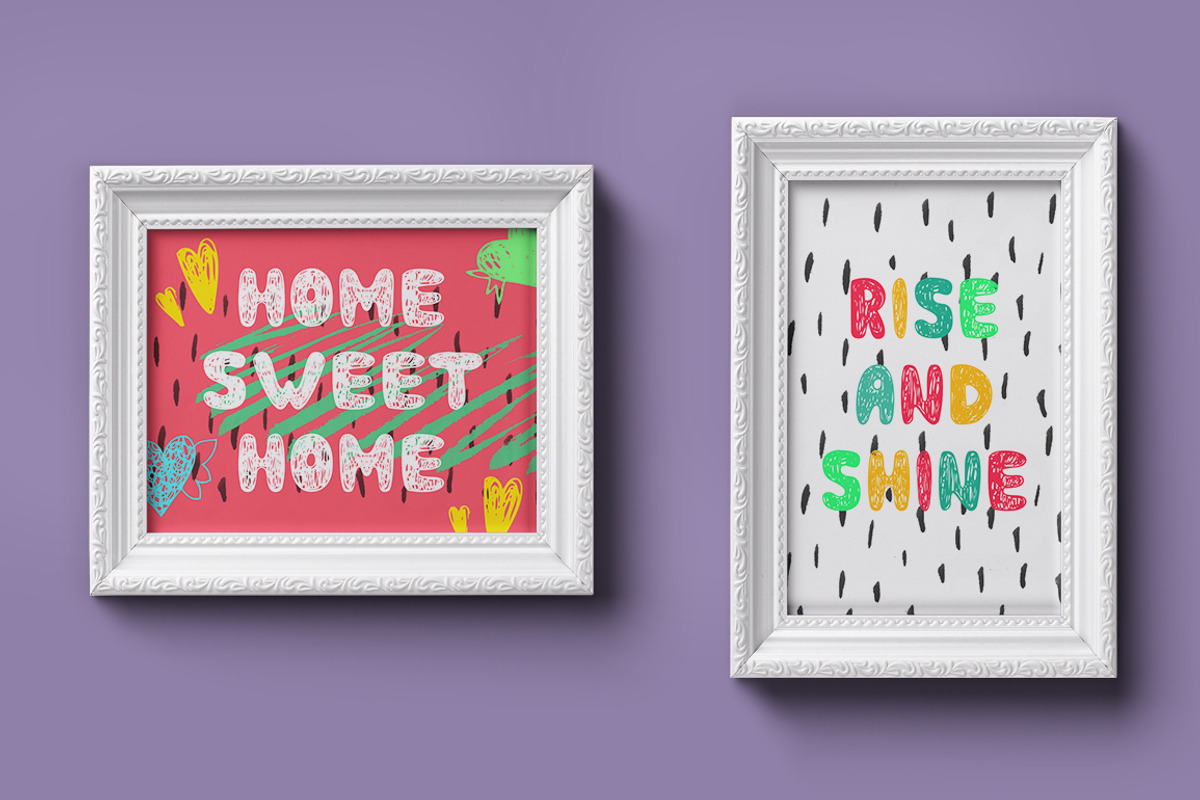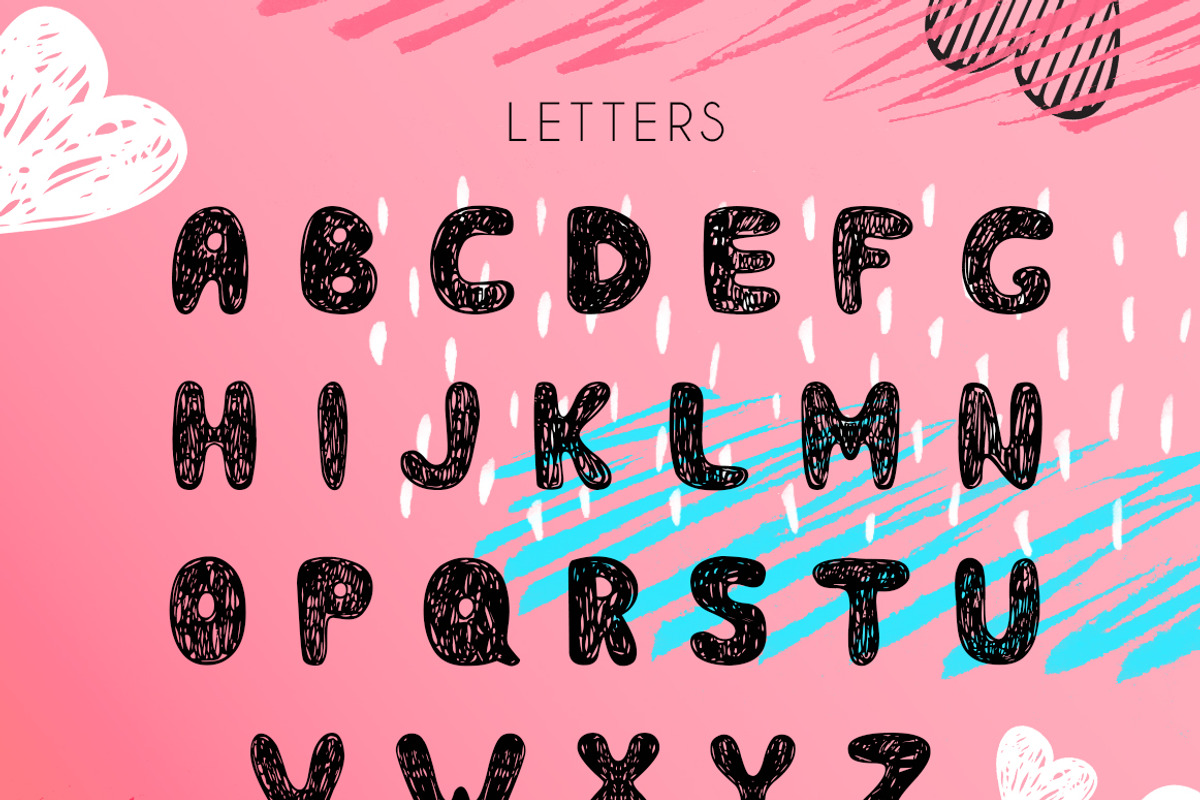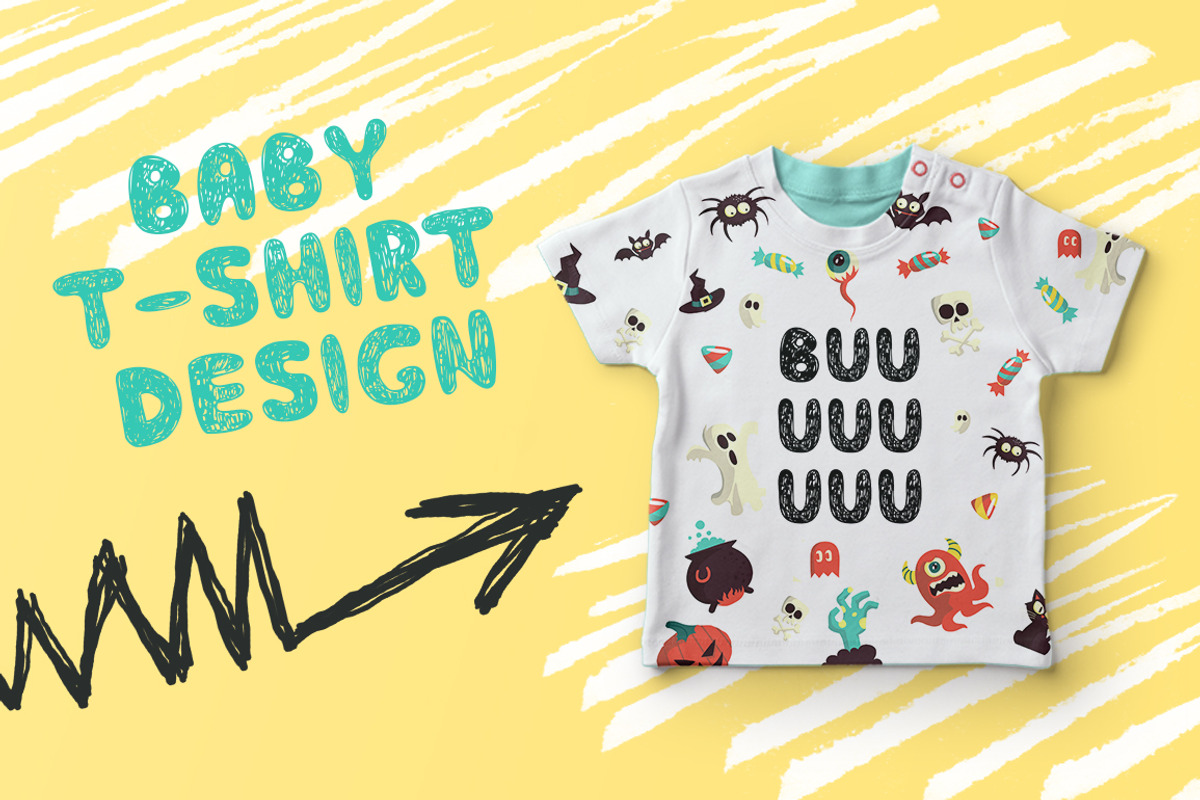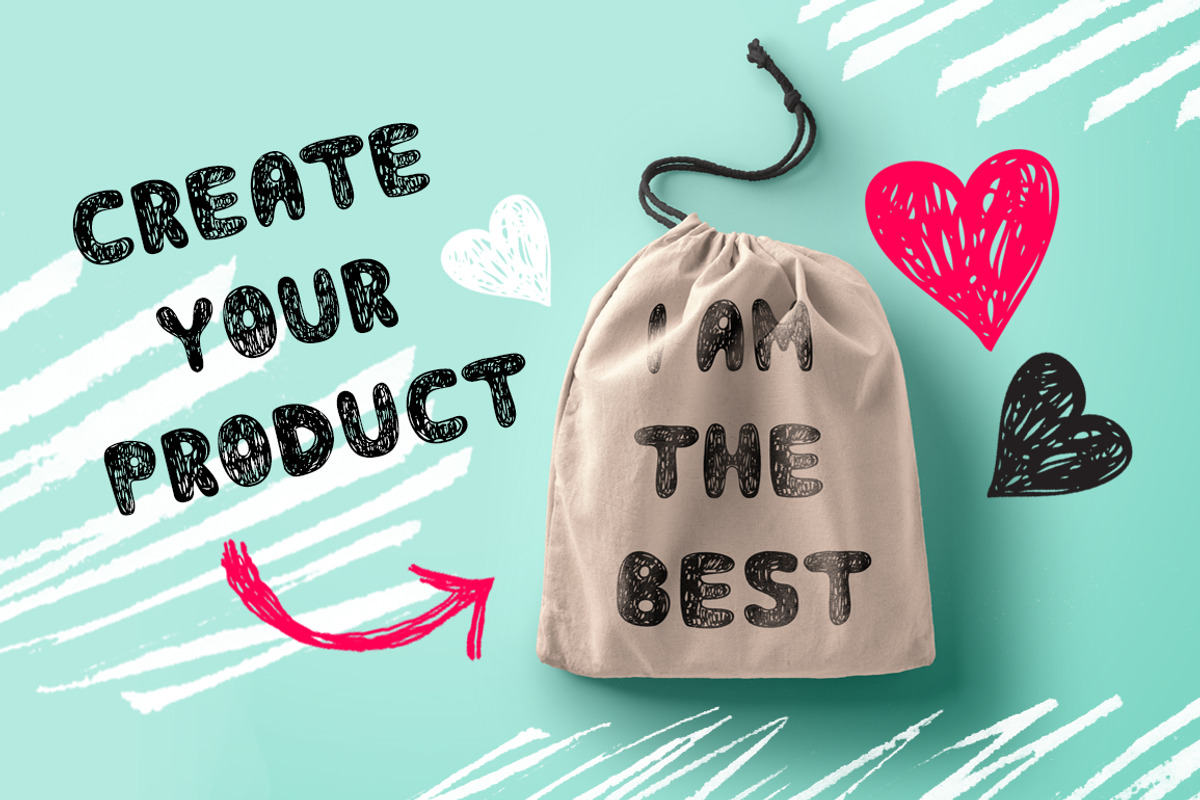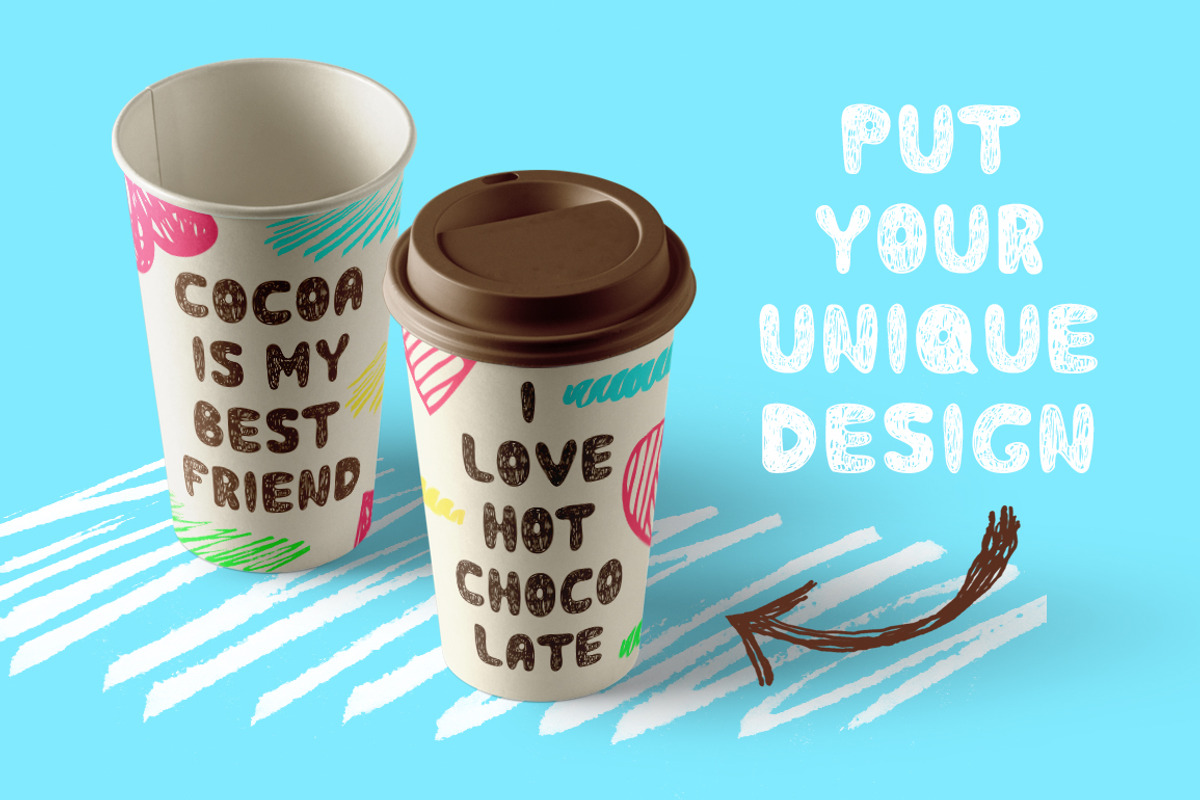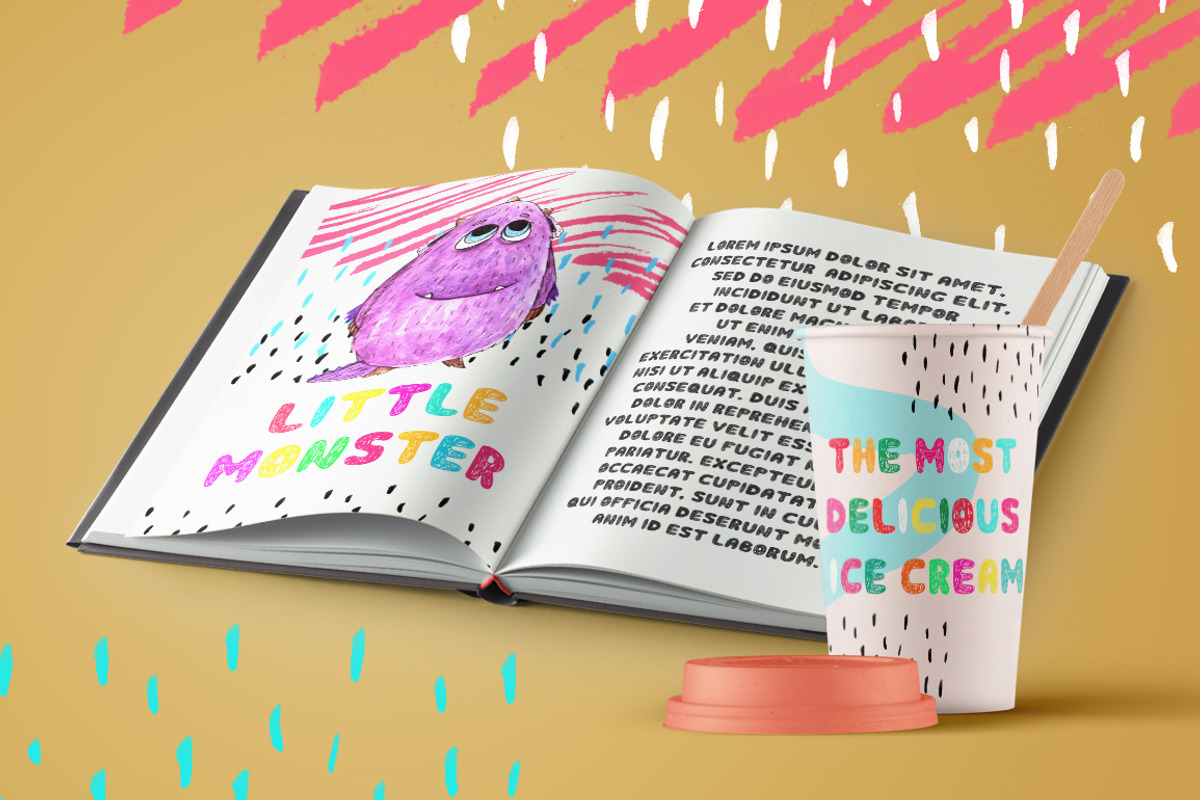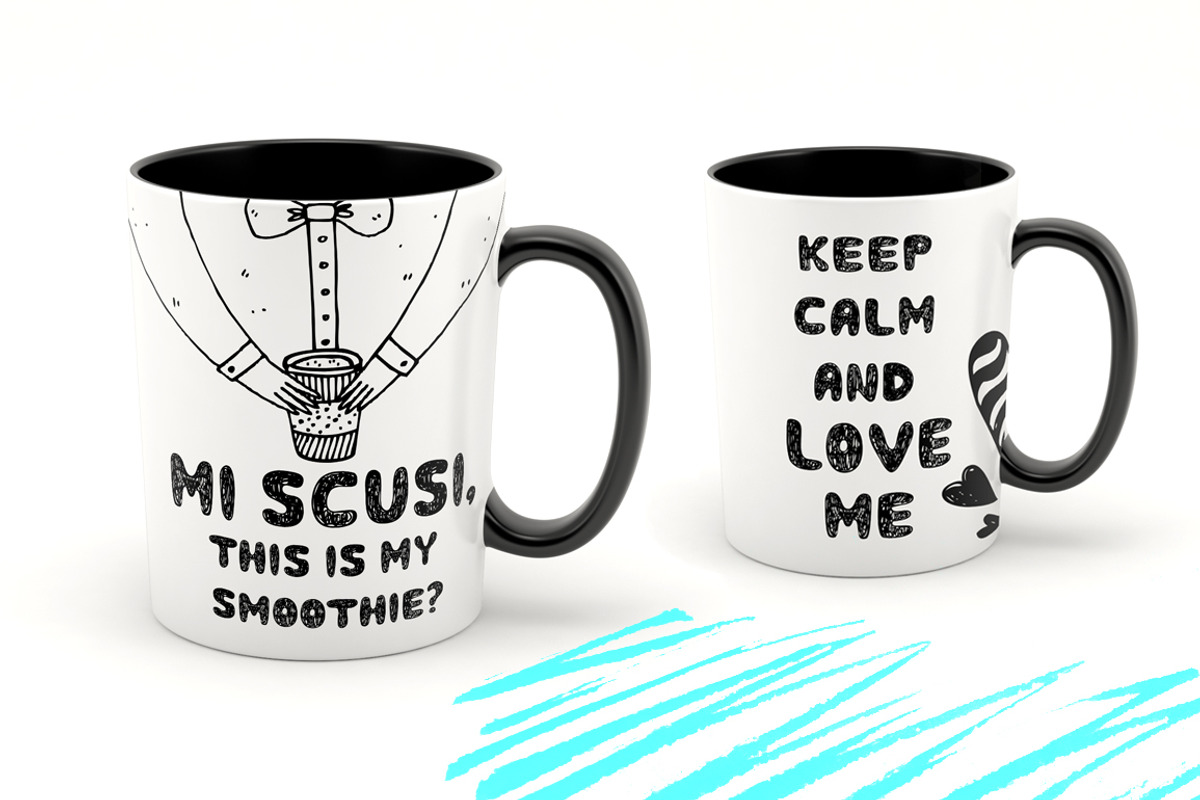
Smoothie - Hand Drawn Inky Font
Smoothies hand drawn font was created with love. Every single letters have been carefully crafted to make your text looks beautiful. With modern unique style this font will perfect for many different project ex: design t-shirts, book cover, quotes, blog header, poster, branding, logo, invitations, cards, cases design, fashion, apparel, letter, invitation, stationery.
Smoothie - Hand Drawn Inky Font by JuliyArt fits naturally into Branding, posters, packaging, typography.